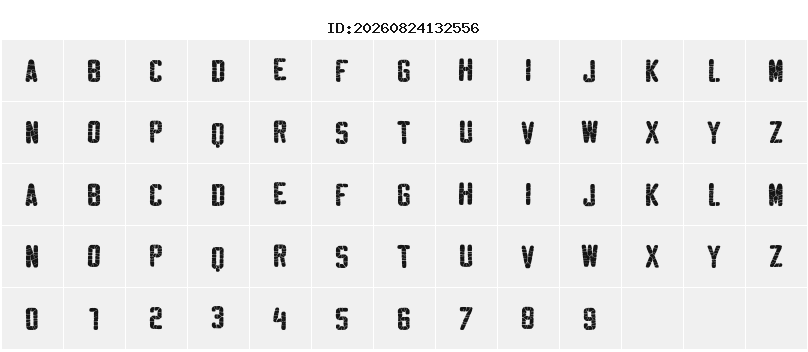
• Font Name: Sablon Washed
• Manufacturer: Youssef Habchi
About Sablon Washed.otf
Sablon Washed.otf is a modern, elegant sans-serif font designed for ultimate readability and visual harmony. Perfect for branding, headlines, web design, and print materials.